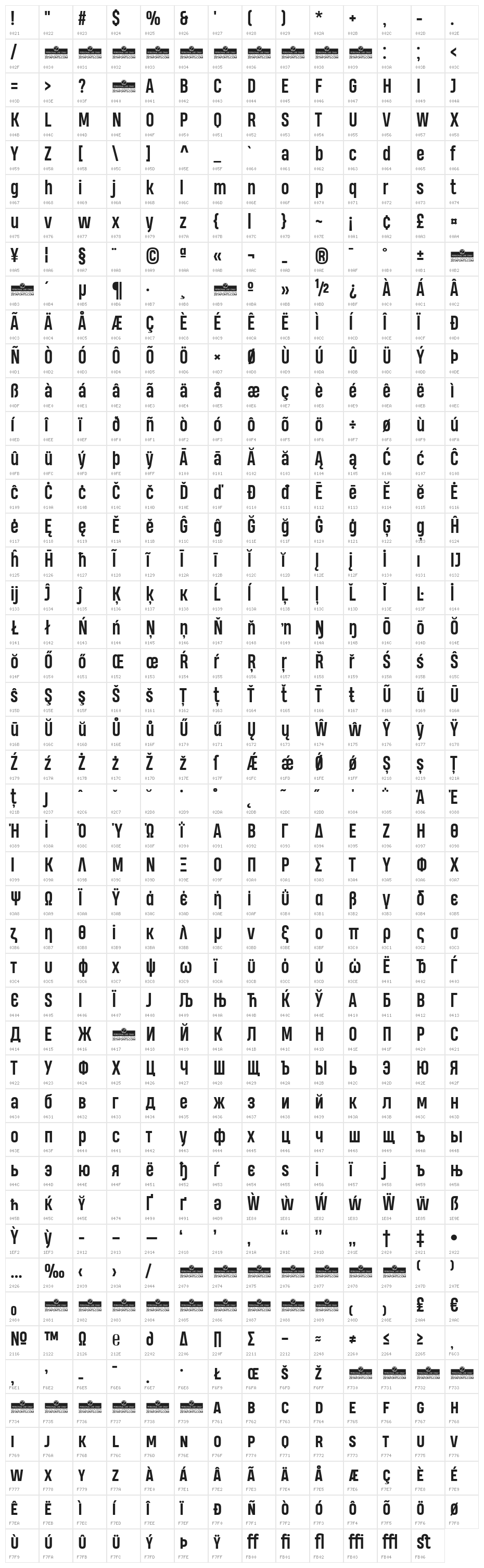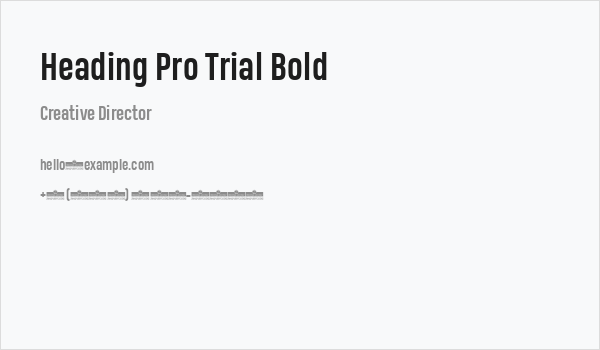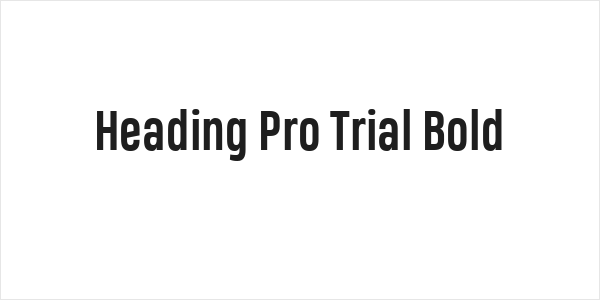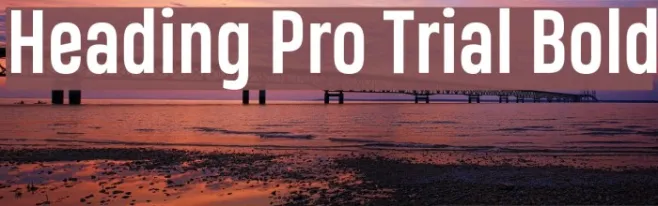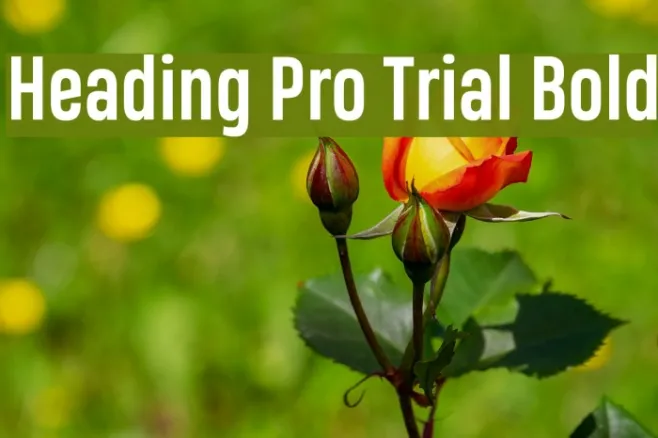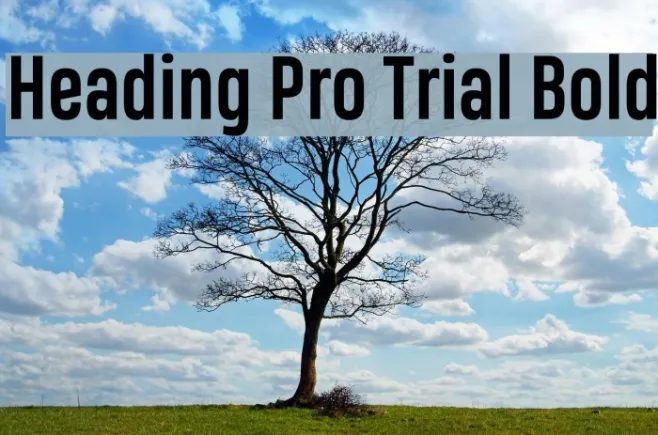
Heading Pro Trial Bold Font
Heading Pro Trial Bold Description
This typeface features a bold and modern sans-serif design with clean lines and a strong presence. The uppercase and lowercase letters are well-proportioned, offering a harmonious balance between readability and style. The numerals are clear and consistent with the overall design, making them suitable for various applications. Special characters are included, maintaining the font's cohesive look. This font is versatile, ideal for both digital and print media, ensuring clarity and impact in any context.
| Proposed Projects | Ideal for branding, advertising, headlines, and digital media projects. |